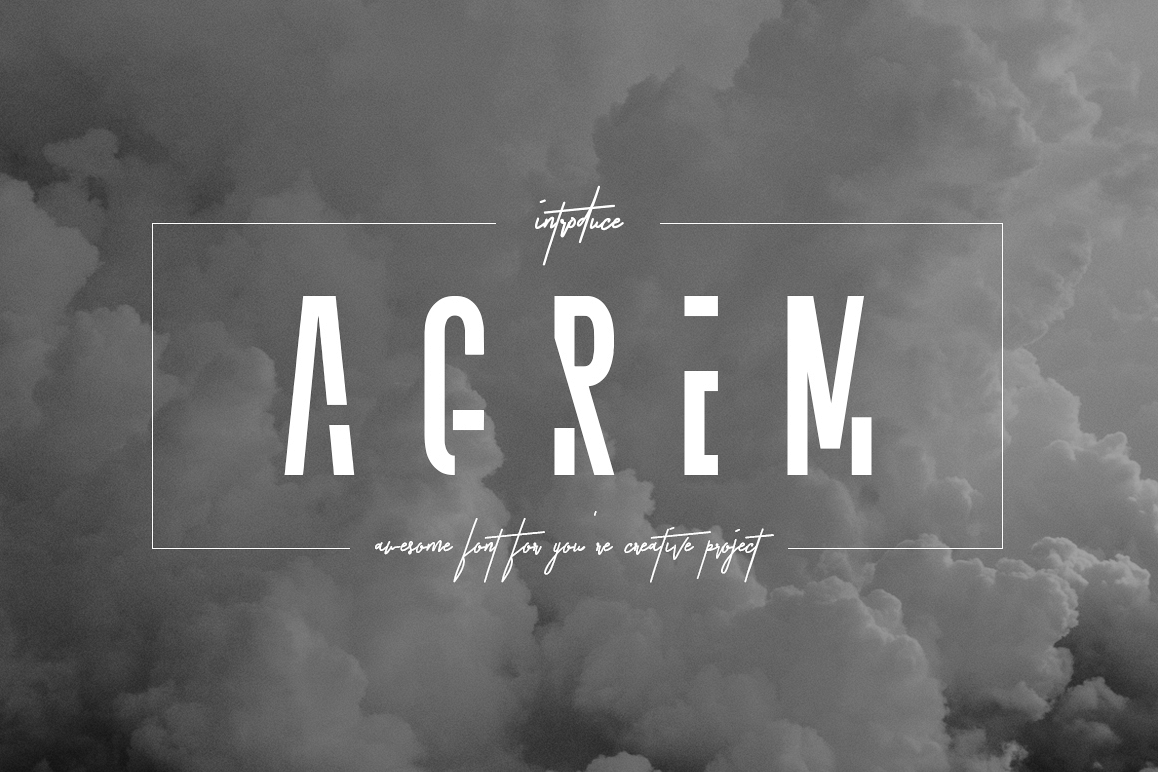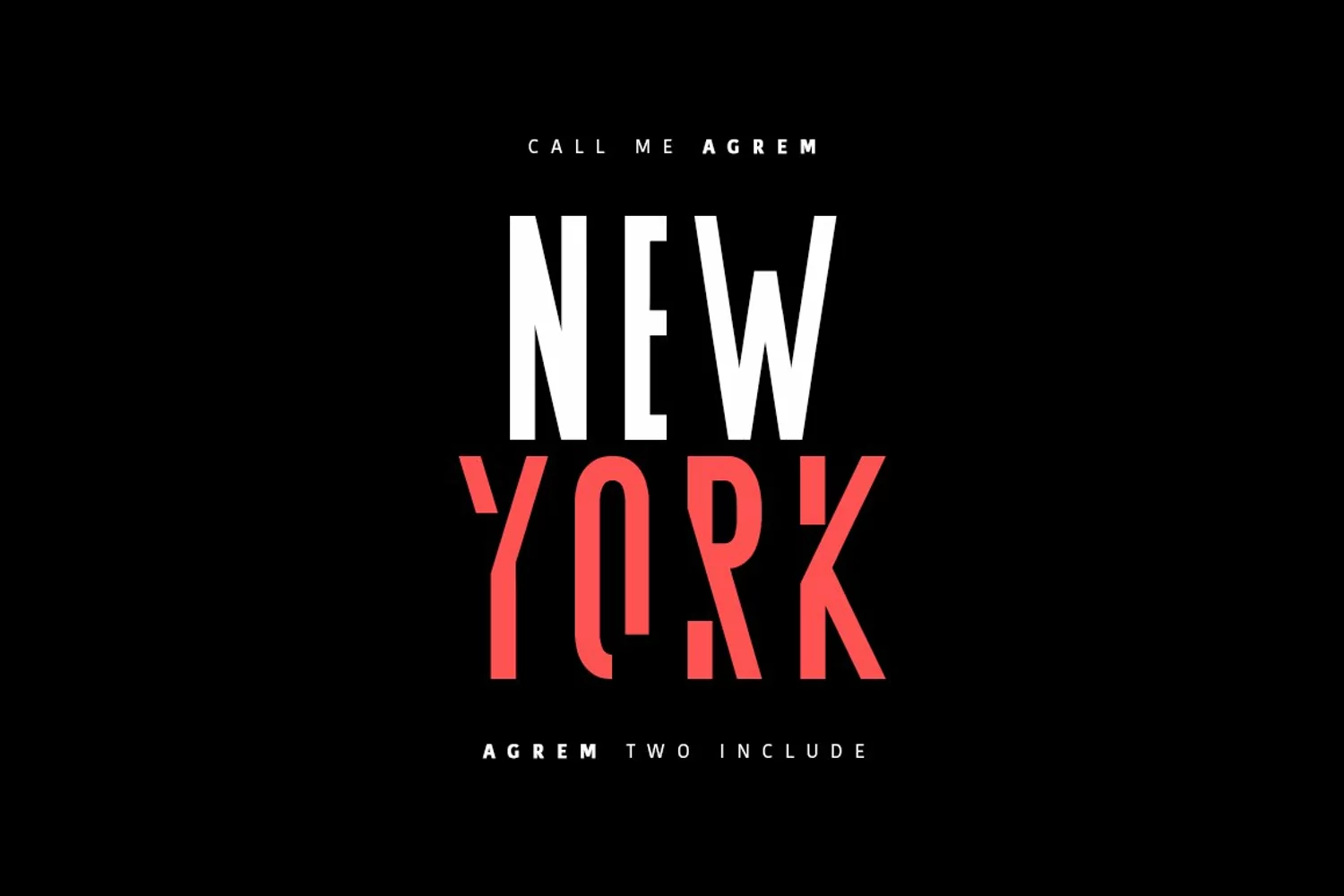
Agrem Sans is modern sans serif font. "Agrem" is perfectly suited to poster, stationery, logo, typography quotes, magazine or book cover, website header, clothing, branding, packaging design and more.License: This font included for personal, commercial use, multiple projects, behalf of a client. Fonts may be printed on to products that are subsequently sold, websites and within website design. Graphics may be printed on to products that are subsequently sold when an effort is made to use them as part of a new design including a variation of other graphics or fonts.This font available: